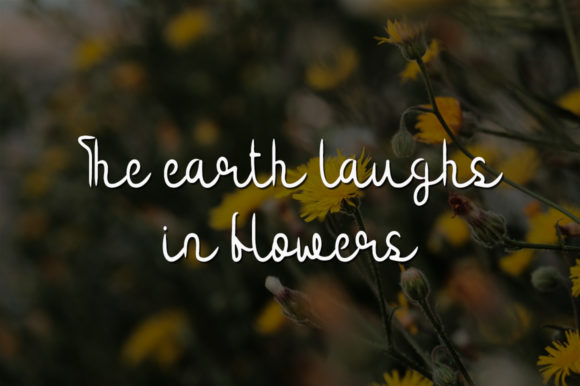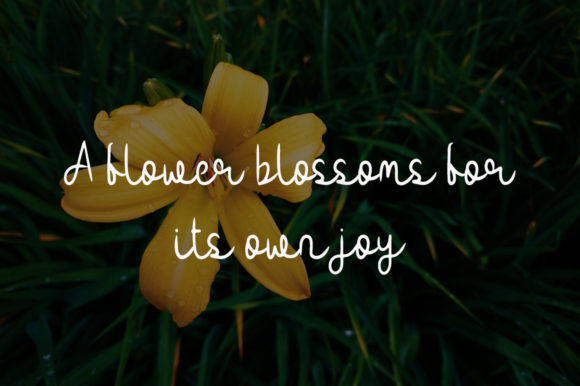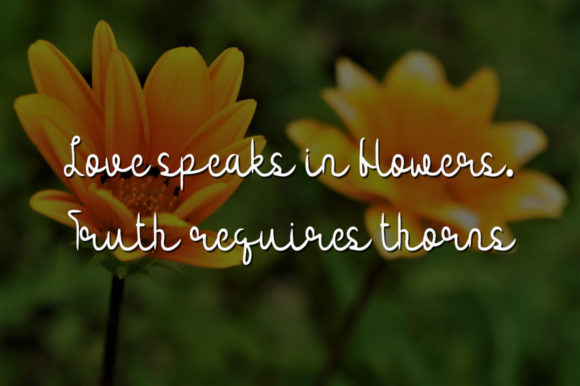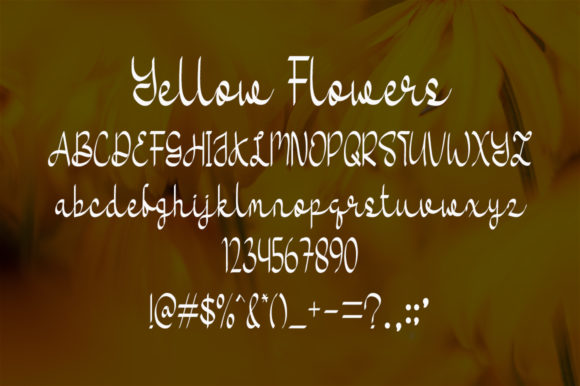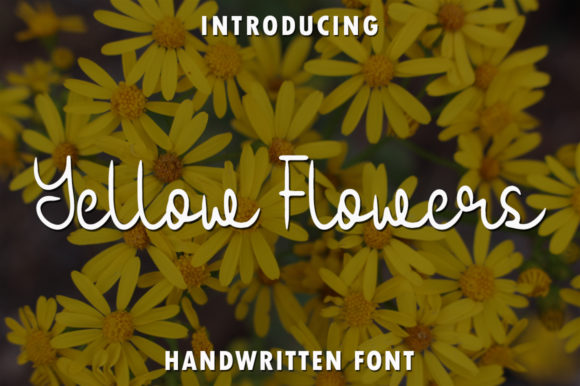
About Yellow Flowers Font
Introducing “Yellow Flowers” – a beautiful and refined script font that embodies an elegant style. With its captivating design, this font adds a touch of sophistication to various design projects. Whether it’s wedding invitations, thank you cards, quotes, greeting cards, logos, or business cards, “Yellow Flowers” enhances every creation with its stunning handwritten aesthetic.
The graceful and flowing curves of “Yellow Flowers” bring a sense of beauty and charm to any text. Each letter is meticulously crafted, creating a seamless flow that catches the eye and leaves a lasting impression. This font’s versatility allows it to adapt effortlessly to both formal and informal contexts, making it a versatile choice for a wide range of design applications.
When used on wedding invitations, “Yellow Flowers” exudes a romantic and whimsical ambiance, setting the perfect tone for a memorable occasion. Its delicate strokes add an element of elegance, making it an ideal choice for enchanting stationery.
Expressing gratitude becomes even more special when accompanied by the grace of “Yellow Flowers.” Thank you cards adorned with this font exude a sense of warmth and sincerity, leaving a lasting impact on the recipient.
Quotes come to life with the enchanting “Yellow Flowers.” Its expressive nature adds depth and emotion, transforming simple words into captivating messages that resonate with readers. Whether for social media posts or inspirational prints, this font adds a touch of refinement to every quote.
Greeting cards become extraordinary works of art when adorned with the beauty of “Yellow Flowers.” Its unique style conveys a sense of grace and elegance, making it perfect for conveying heartfelt messages on special occasions.
Logos crafted with “Yellow Flowers” radiate sophistication and creativity. The script font brings a personalized touch to brand identities, leaving a memorable impression on potential customers.
Business cards take on a new level of elegance with the addition of “Yellow Flowers.” Its refined appearance adds a touch of class to any design, making it ideal for businesses looking to make a lasting impact.
In conclusion, “Yellow Flowers” is a truly captivating script font that elevates any design project with its beauty and refinement. Its versatility and elegant style make it the perfect choice for wedding invitations, thank you cards, quotes, greeting cards, logos, business cards, and any other creative endeavor that desires a handwritten touch. Let “Yellow Flowers” bring your designs to life with its exquisite charm.